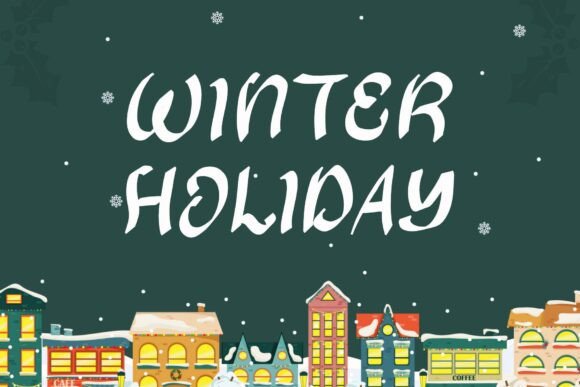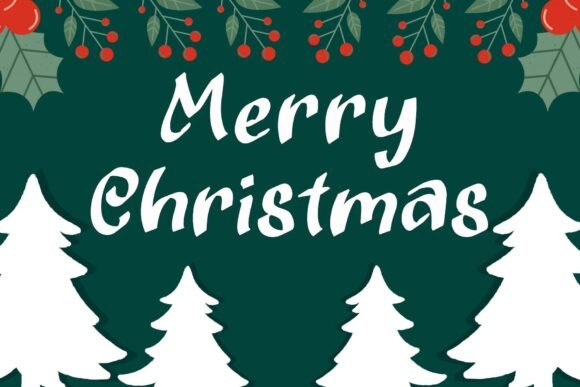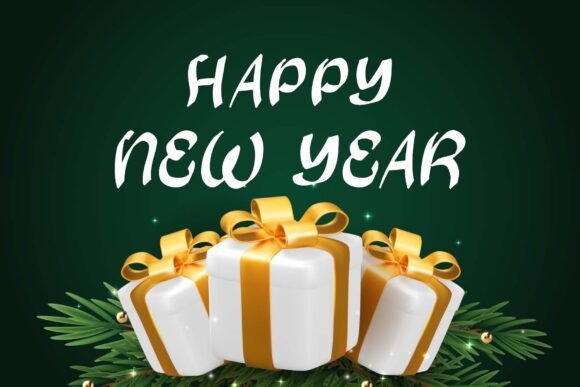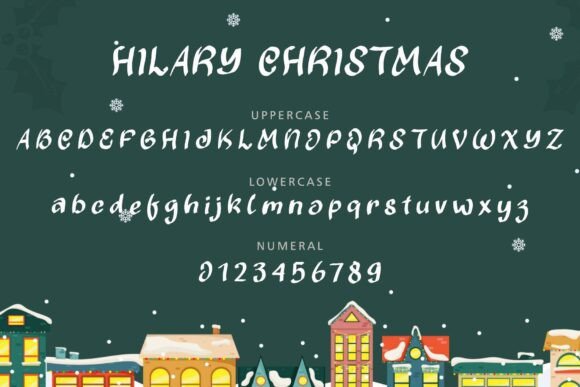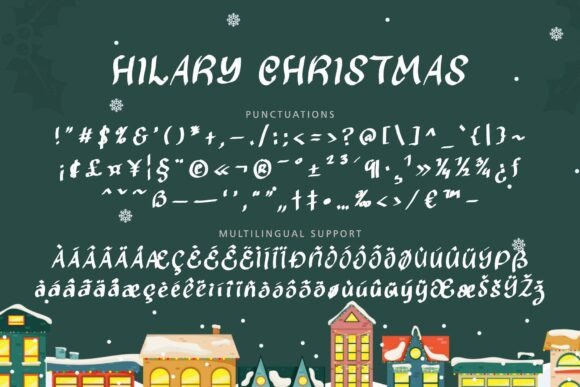
Introduction to Hilary Christmas Font
As the holiday season approaches, designers are looking for the perfect font to capture the magic of the moment. I still remember the excitement of rummaging through my grandma’s old scrapbook, filled with intricate handmade cards and invitations that seemed to come alive with their unique flair. That’s when I stumbled upon the perfect font to bring my creative project to life – the Hilary Christmas Font.
This elegant handwritten font is a treasure trove of design possibilities, offering high-quality letters, numbers, punctuation, and multilingual support. Whether you’re creating Christmas cards, logos, banners, or invitations, the Hilary Christmas Font is the perfect design resource to add a touch of whimsy and sophistication. And the best part? It’s available for free download, making it an accessible and valuable addition to any designer’s toolkit.
With its transparent background and versatility, the Hilary Christmas Font is an ideal choice for designers looking to create unique and memorable designs that stand out from the crowd.
Key Features of Hilary Christmas Font
- High-Quality Design Resource: The Hilary Christmas Font is a premium design resource perfect for creative projects, offering a unique and elegant touch.
- Transparent Background: The font features a transparent background, allowing for seamless integration with any design element or background.
- High Resolution: This font is designed at a high resolution (300 DPI), making it suitable for large-scale designs, prints, and digital displays.
- Unique Characteristics: The Hilary Christmas Font features a distinctive, hand-drawn design with intricate details and ornaments, setting it apart from other holiday fonts.
Honest Review: Hilary Christmas Font
I recently had the chance to work with the Hilary Christmas Font, and I must say, it’s a unique and charming addition to any design project. The font is available for free download, making it an excellent design resource for creatives on a budget.
What works well: ✨ The font’s high-quality design is immediately noticeable, with intricate details and a clear, crisp appearance. It’s perfect for adding a touch of whimsy to your creative project, from holiday cards to social media graphics.
- High-quality design with intricate details
- Clear and crisp appearance
- Perfect for adding a touch of whimsy to creative projects
One limitation: ⚠️ The font is a bit limited in its usage, as it’s specifically designed for Christmas-themed projects. If you’re looking for a versatile font that can be used year-round, you may want to consider a different option.
Overall impression: I’m impressed with the Hilary Christmas Font’s unique design and high-quality appearance. While it may have some limitations, it’s an excellent choice for any creative project that requires a touch of holiday magic.
Tips for Getting the Most Out of Hilary Christmas Font
To get the most out of the Hilary Christmas Font, use it in conjunction with a transparent background to create a beautiful and elegant design. Experiment with different font sizes and styles to achieve the desired look for your project.
The Hilary Christmas Font is commonly used for holiday-themed projects, such as Christmas cards, invitations, and decorations. It’s also suitable for other creative projects, including wedding invitations, party decorations, and gift tags.